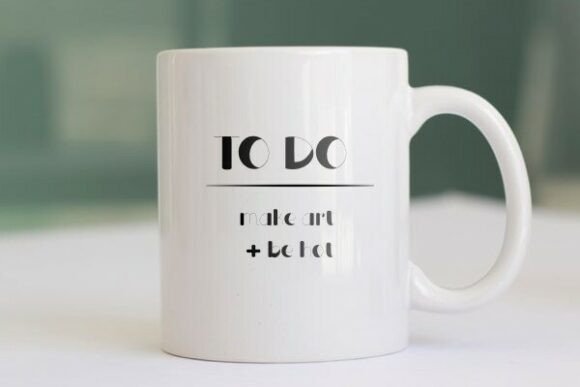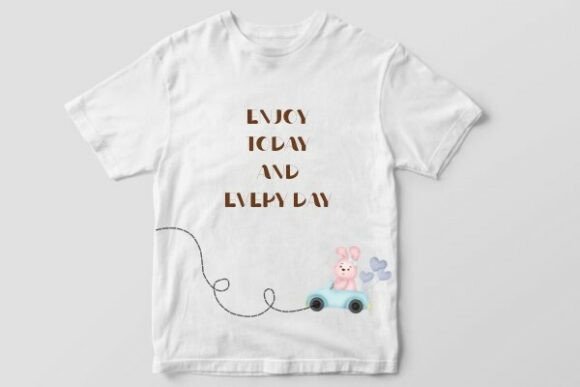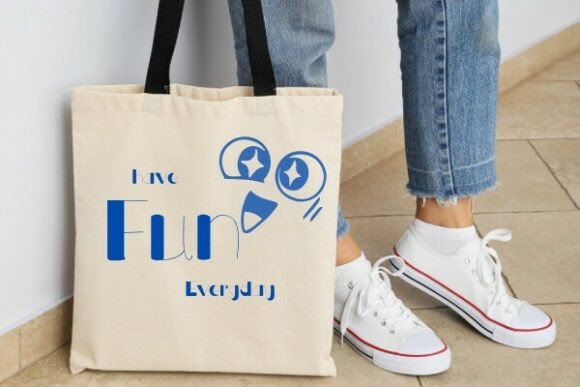
Introduction to Rabbits Font
Experience the allure of Rabbits, a unique and captivating hand-drawn font.
Its intriguing design lends itself perfectly well to a diverse array of applications Dress up your totes, mugs, and T-shirts with its dynamic appeal, or add a dose of personality to your greeting and invitation cards.